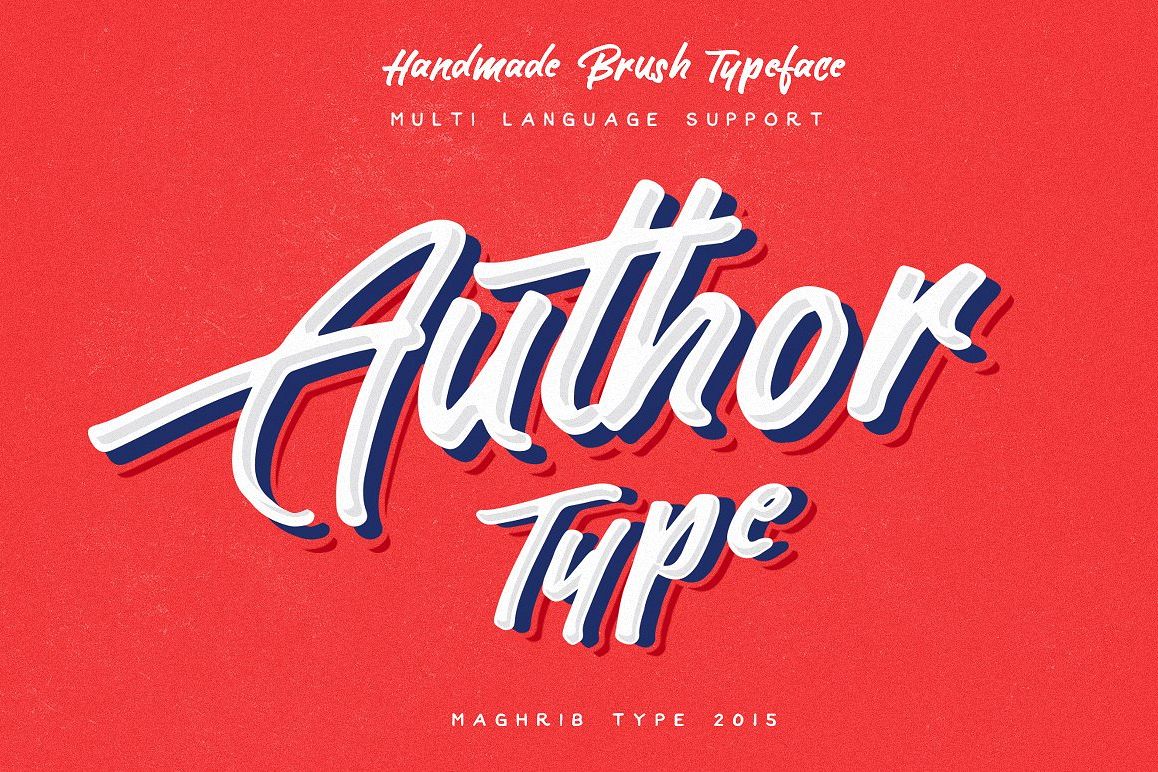
Author Type
AuthorType
Author type is hand painted typeface designed to help you create the look of stunning custom hand-lettering.Author type comes with upper and lowercase characters, punctuation, numerals, swashes, and Language supportUse author type to make logo marks, posters, t-shirt designs or anything that requires that personal touch.